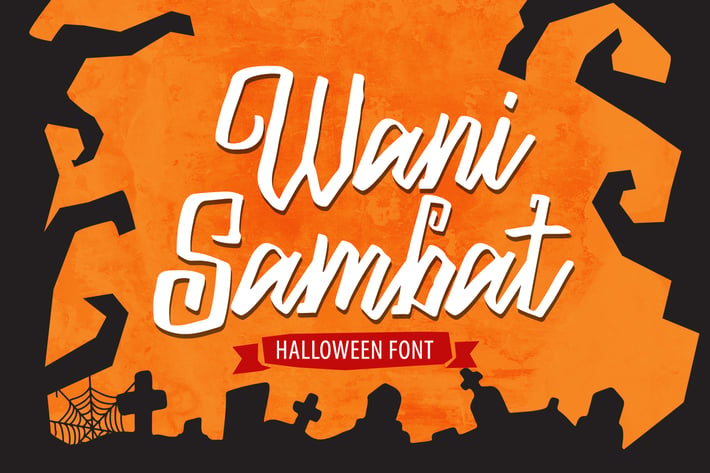
Wani Sambat - Halloween Font
Hello there! This is Wani Sambat, a unique handwritten font perfect for Halloween Day!
WaniSambat is perfect for flyer design, tshirt, invitation, banner, illustration, poster, event, sticker, promo, logo, sales and etc.
All fonts containing upper & lowercase characters, numerals, punctuation, multilingual support and dingbats halloween illustration.